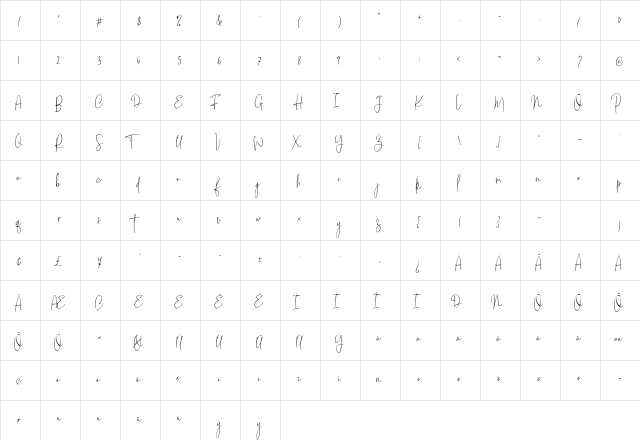
Jallu Salafi Regular
| Designer | Gilar Studio |
Design Context for Jallu Salafi Typeface
Jallu Salafi is a composed and adaptable typeface that performs quietly and consistently across a wide range of design contexts.